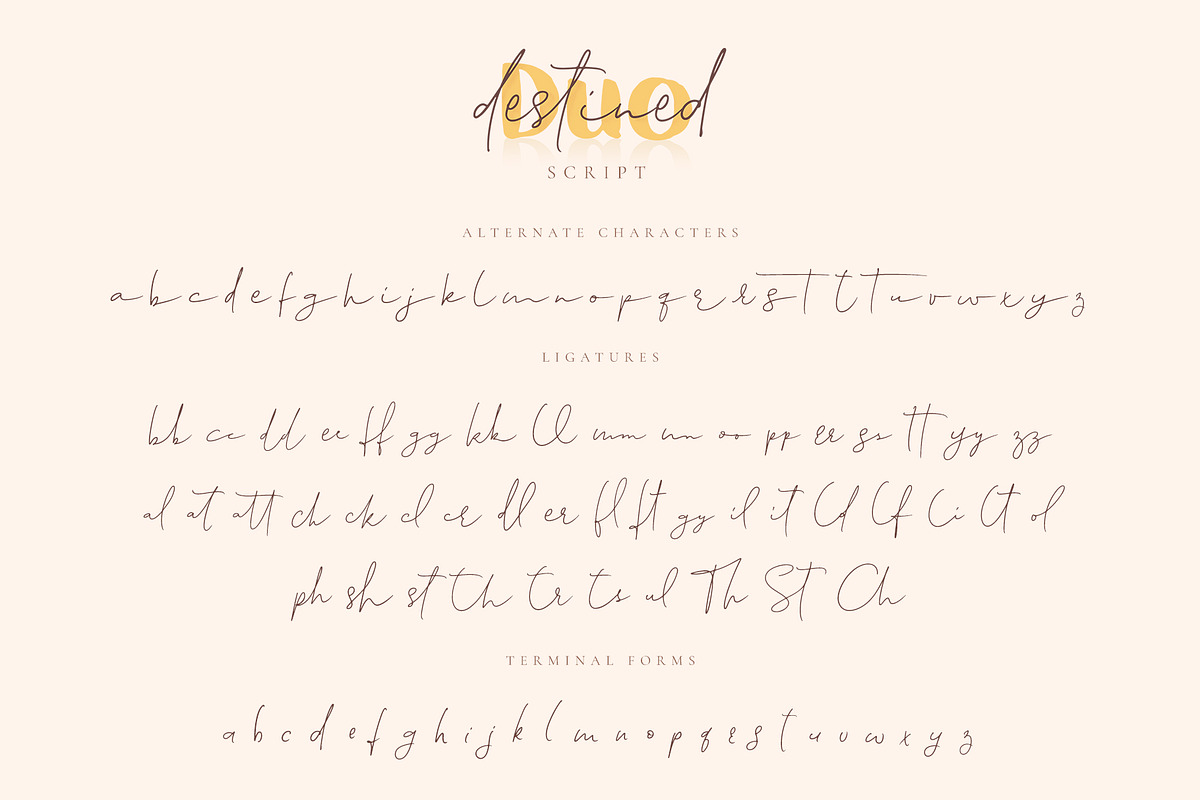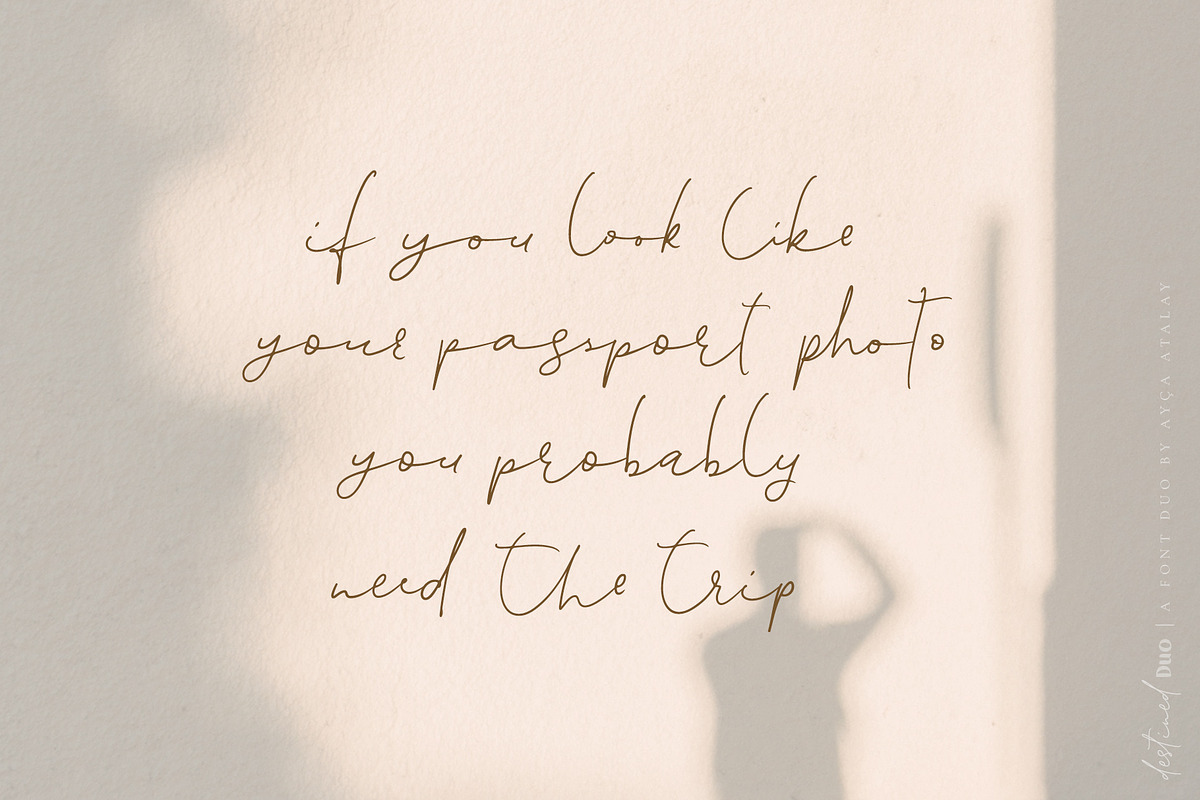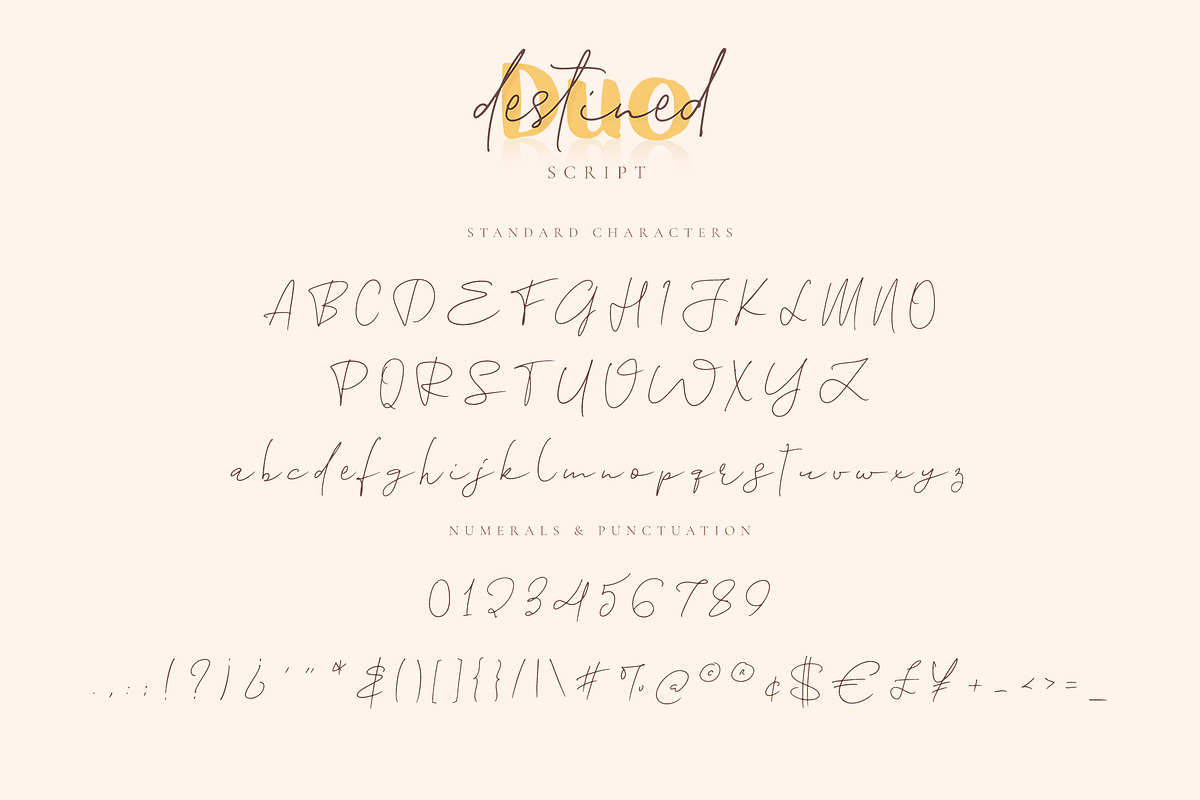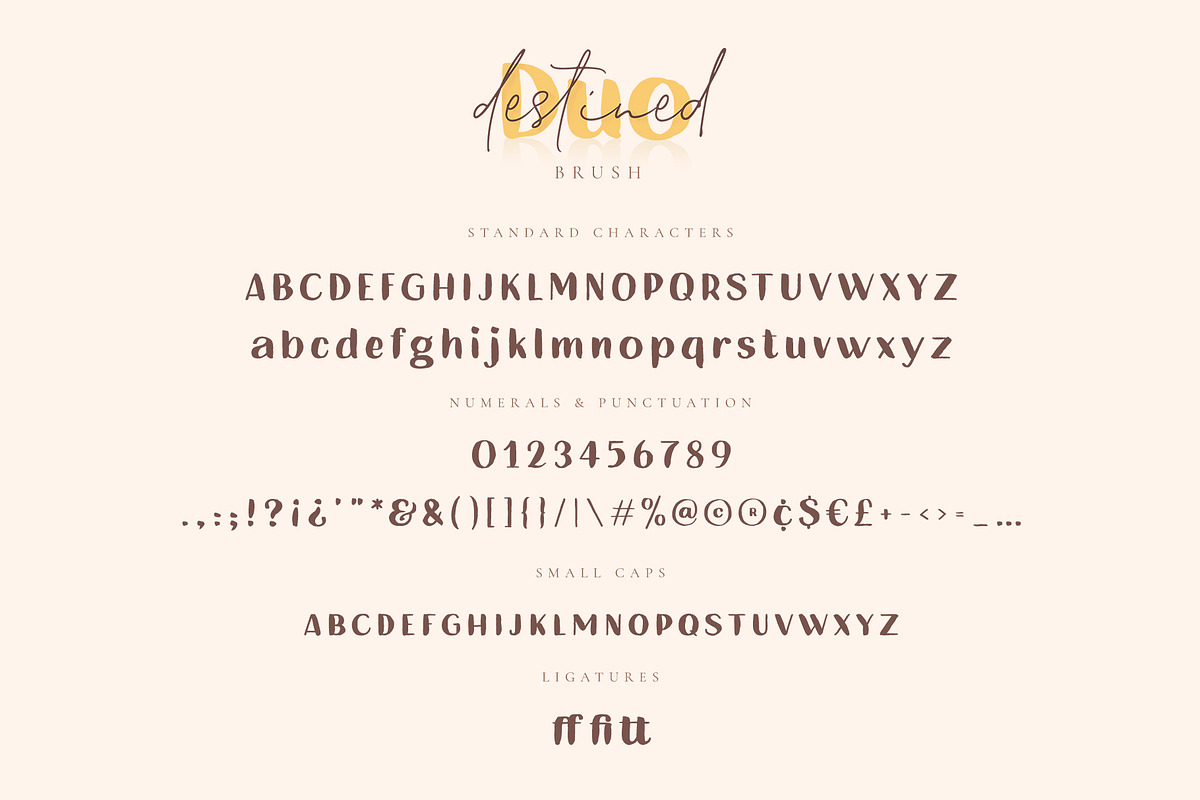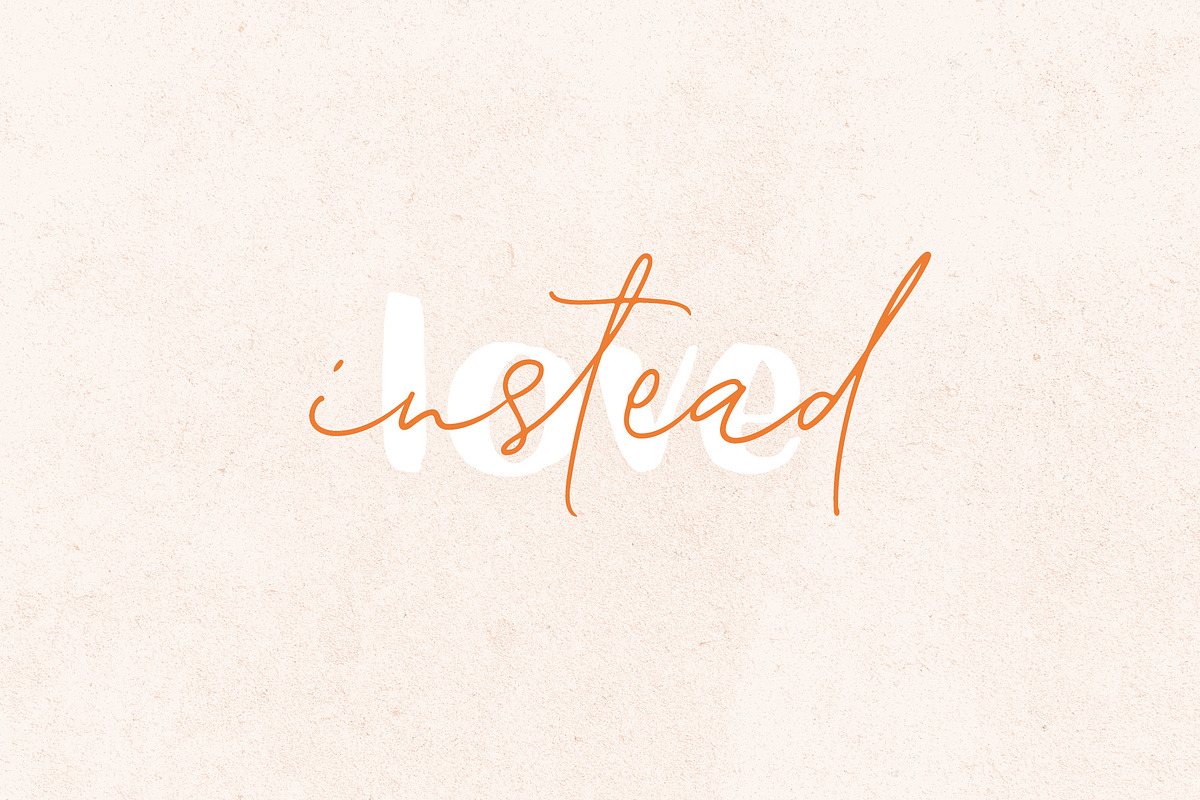
Destined Duo Brush Sans & Signature
Introducing Destined Duo, a highly contrasting font couple made up of an all-natural hand written brush sans and an elegant signature script.
Both completely made by hand, yet completely different in style, they display a unique flavor fueled by their opposing characteristics.
Destined Duo Brush Features
- Lowercase & Uppercase Letters
- Small Caps
- Ligatures (ff, fi, tt)
- Multilingual Characters
Destined Duo Script Features
- Lowercase & Uppercase Letters
- Alternate Lowercase Letters
- 46 Ligatures
- Terminal Forms
- Multilingual Characters